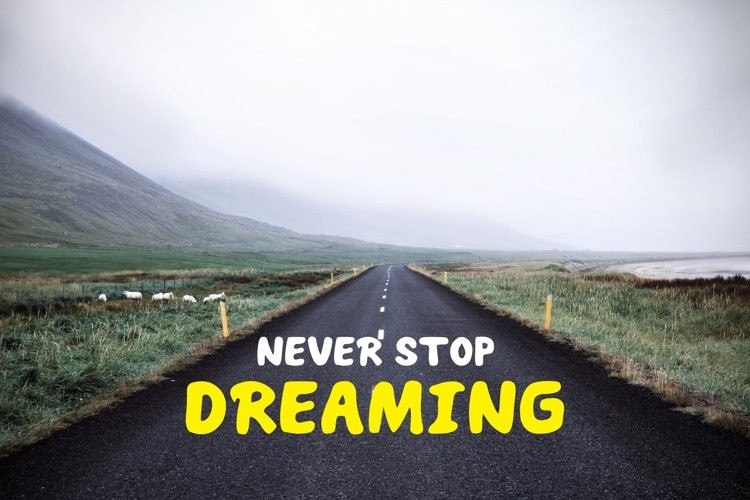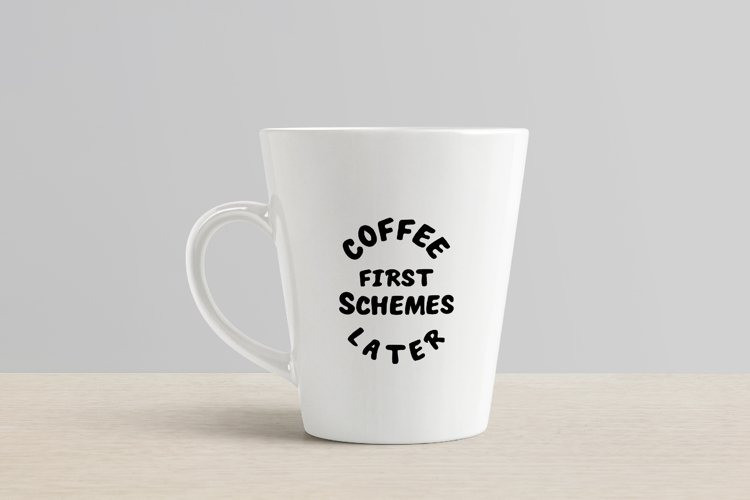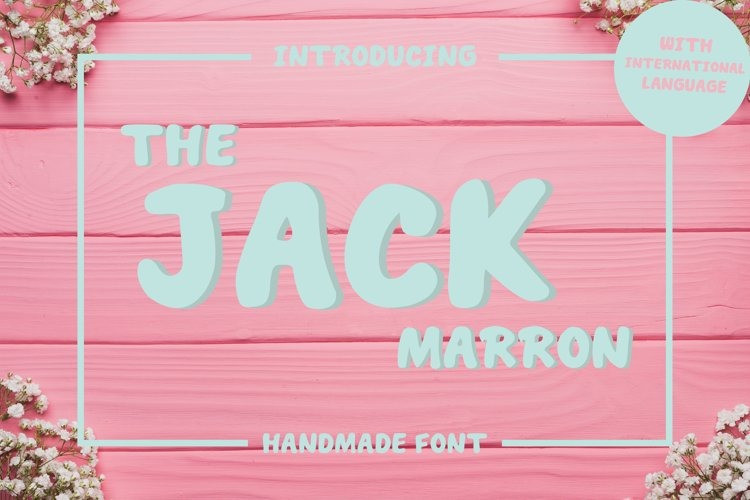
THE JACK MARRON Display Font
We have a new font for you called The Jack Marron. This is a cute font, a fancy font, a fun font that very very useful for many your design projects. You can use it for logo, poster, menu, clothing, education project, quote, and others.